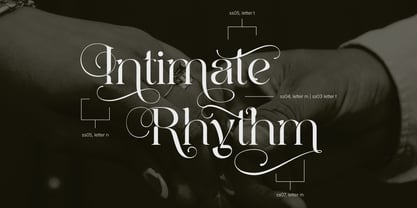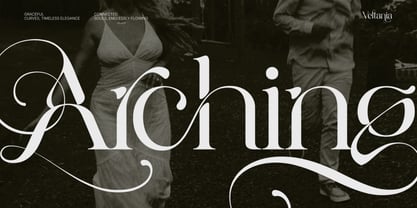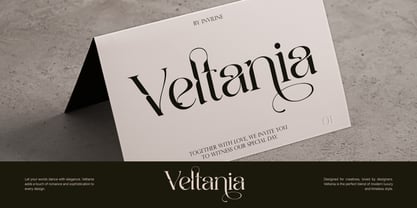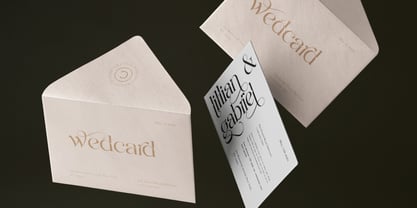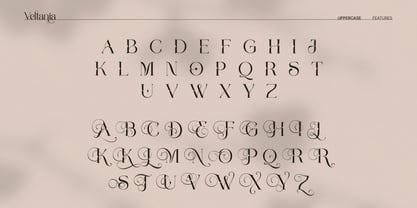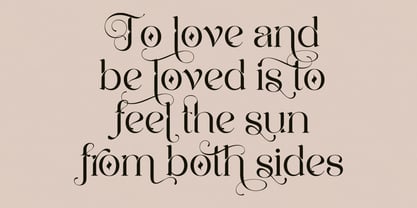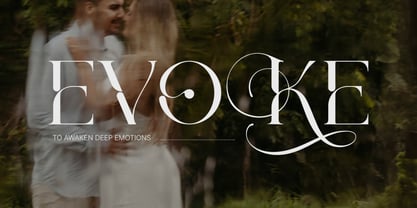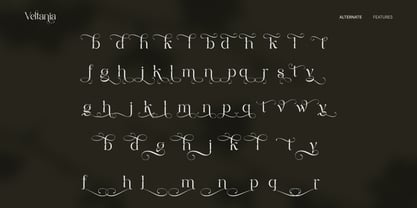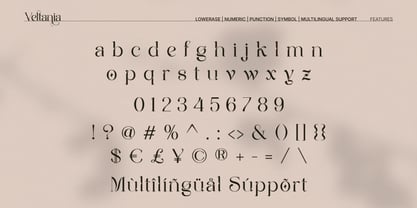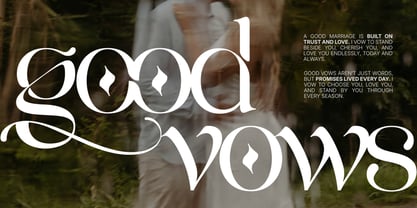
Veltania Display Pro
by Inviline
The Veltania Display Pro Font Family was designed by Virgiawan Listanto and published by Inviline. Veltania Display Pro contains 1 styles.
Introducing Veltania - Modern Serif Font, the perfect fusion of elegance and modernity in a serif font. Designed for versatility, Veltania features clean lines and sophisticated curves, making it ideal for branding, editorial design, and digital media. With a range of weights and styles, it effortlessly adapts to any creative project, whether you're crafting stunning headlines or elegant body text. Elevate your designs with Veltania and bring a touch of modern sophistication to your typographic creations!
• Uppercase & Lowercase Characters: Fully designed for a complete typographic experience
• Numerals & Punctuation: All the numbers and punctuation marks you need for any design task
• Multilingual Support: Includes characters for multiple languages, ensuring global usability
Features:
• High-Quality Design: Each font is crafted with attention to detail, ensuring a polished and professional look